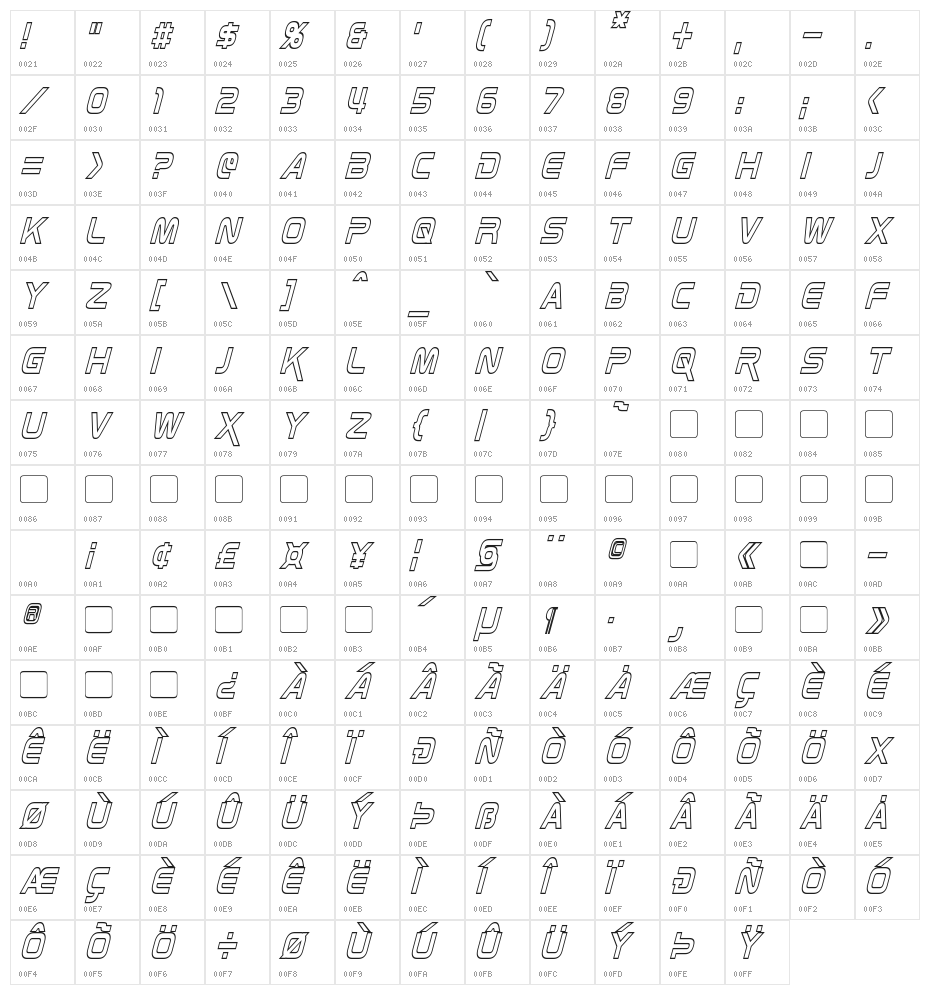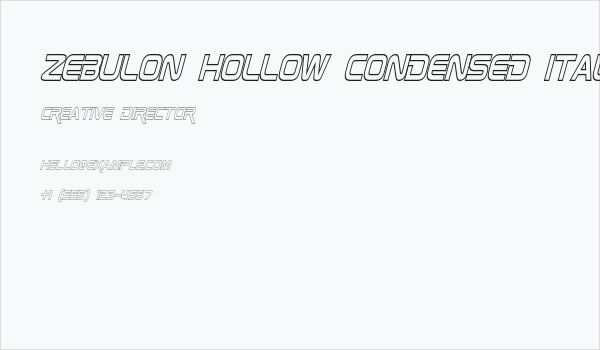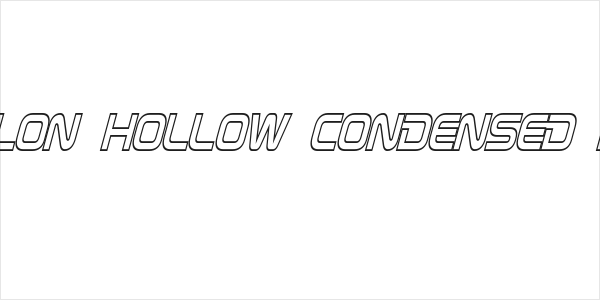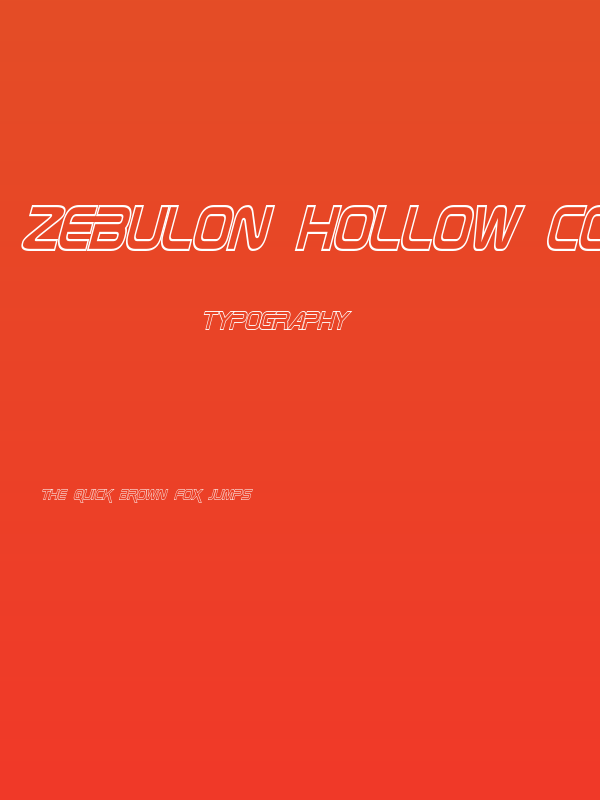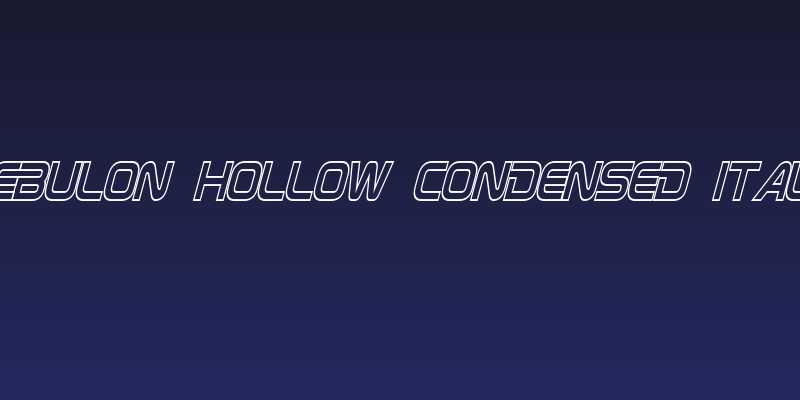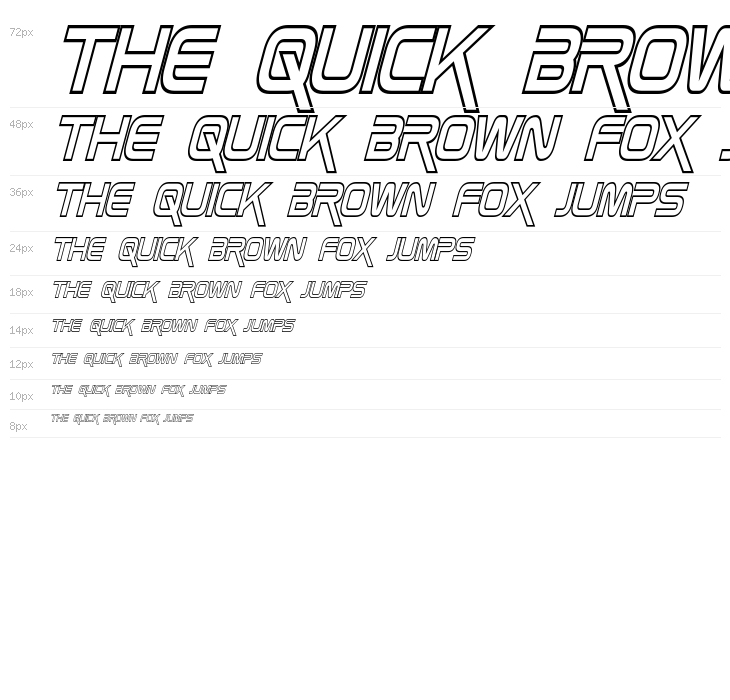
Zebulon Hollow Condensed Italic Font
Zebulon Hollow Condensed Italic Description
This font features a distinct hollow design with a condensed and italicized style, giving it a modern and futuristic appearance. The characters are outlined, creating a sense of depth and dimensionality. The angular and geometric shapes of the letters contribute to its dynamic and energetic feel. The font maintains a consistent stroke width throughout, enhancing its sleek and streamlined look. The italic slant adds a sense of motion, making it ideal for projects that require a sense of speed or innovation. The condensed nature allows for efficient use of space, making it suitable for headlines or titles where impact is essential.